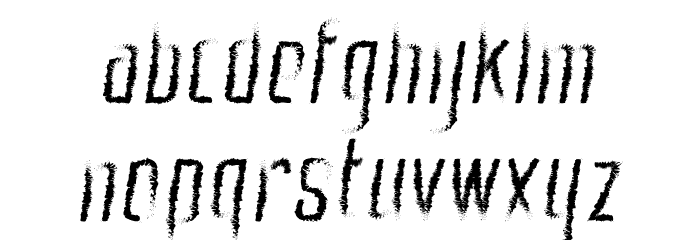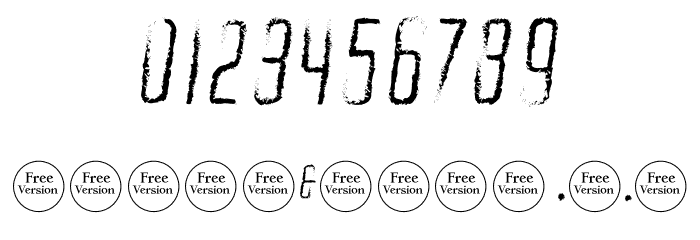
Mystic Forest Free Trial Font
This font features a unique, textured style that resembles brush strokes or ink splatters, giving it a mystical and organic appearance. The characters are slightly condensed with a consistent slant, adding a dynamic and energetic feel. The uppercase and lowercase letters maintain a cohesive look, while the numbers and special characters follow the same artistic theme. The irregular edges and varying stroke thickness create a sense of movement and depth, making it ideal for projects that require a touch of creativity and flair.
A textured, brush-like font with a mystical and dynamic style.
- Proposed Projects: Perfect for fantasy-themed designs, book covers, posters, and artistic branding.